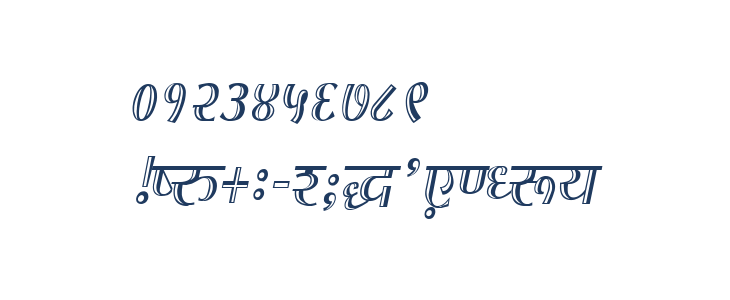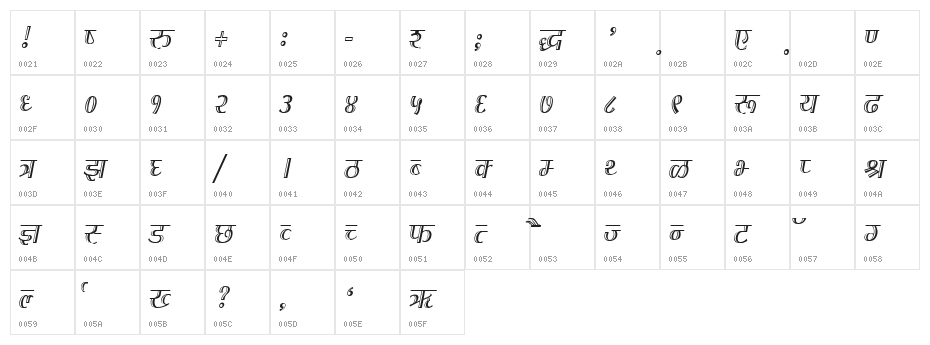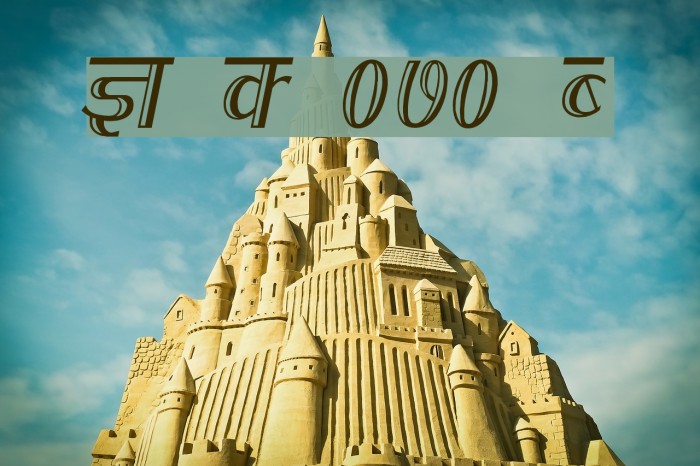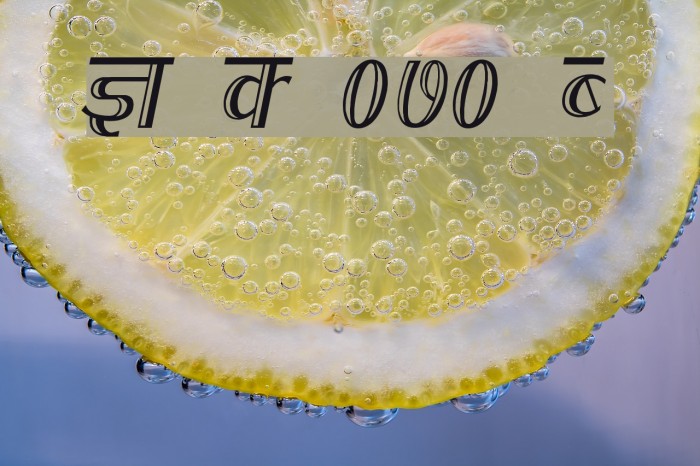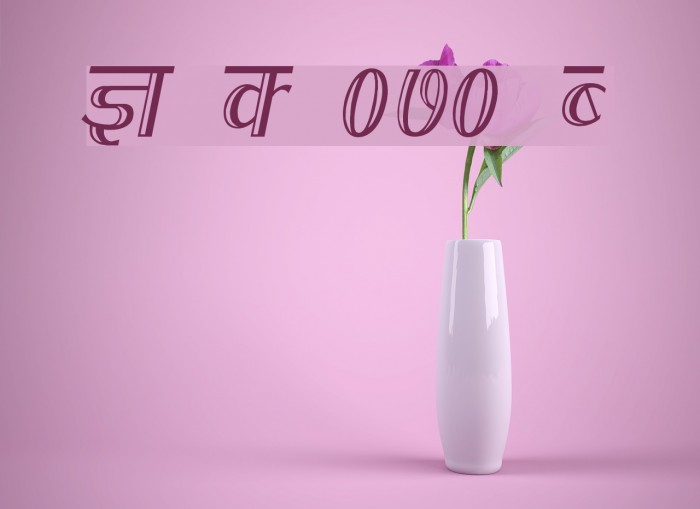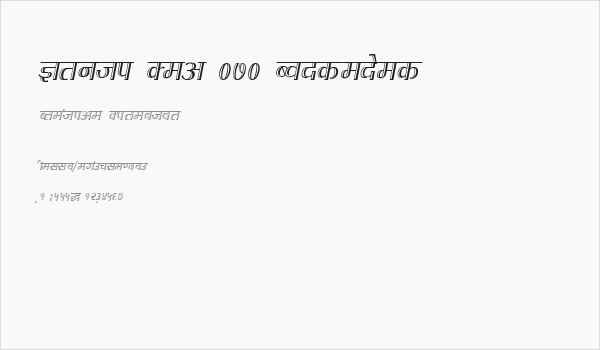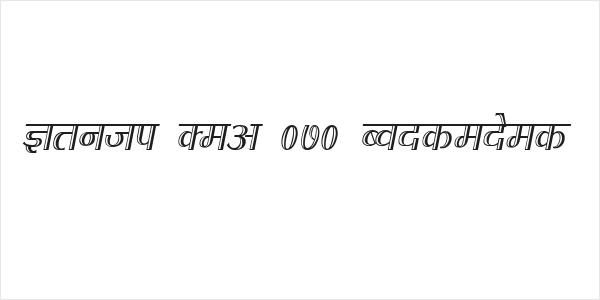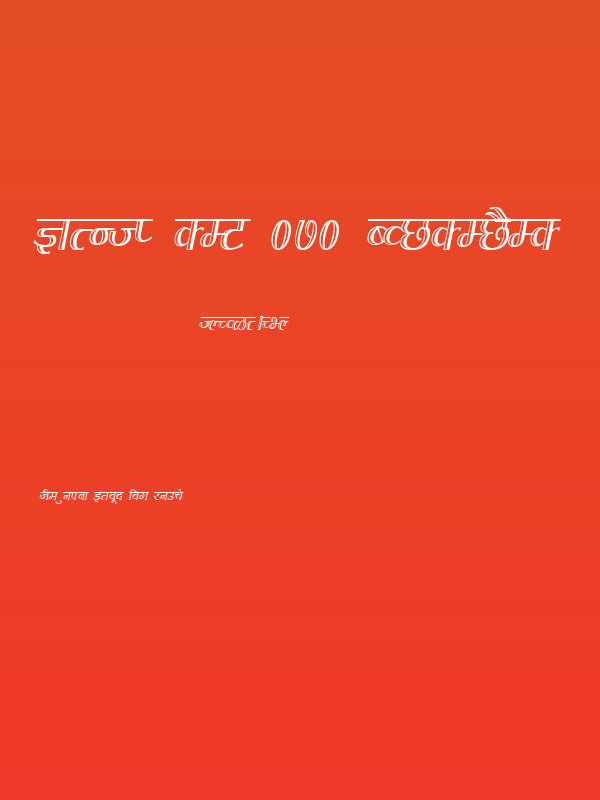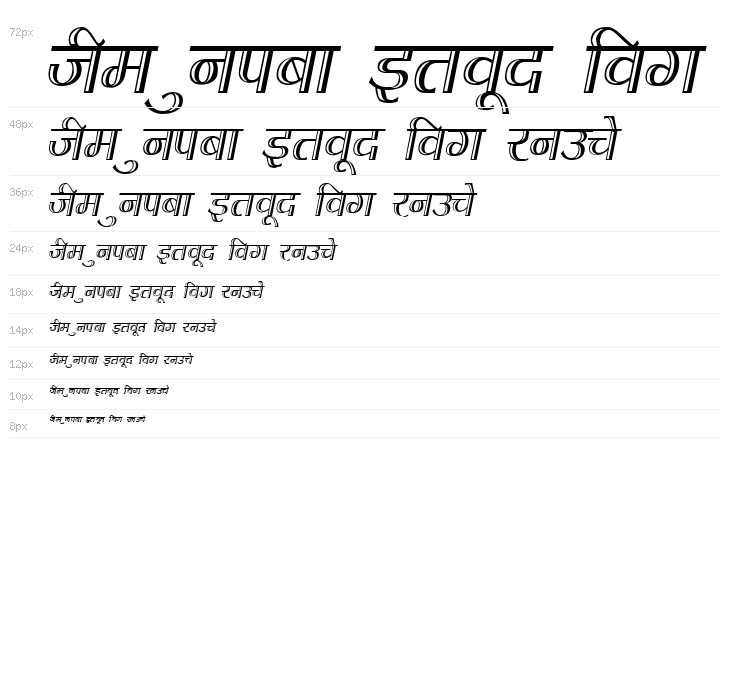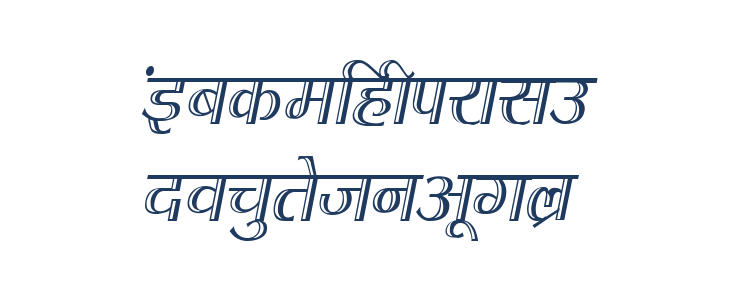
Kruti Dev 070 Condensed Font
Kruti Dev 070 Condensed Description
This font features a distinctive and traditional Devanagari script style, characterized by its condensed and angular letterforms. The strokes are bold and slightly slanted, giving it a dynamic appearance. The characters are tightly spaced, enhancing the condensed feel. The font maintains a consistent stroke width, providing a uniform look across all characters. The overall style is decorative, making it suitable for specific cultural or thematic projects. The font includes a full set of Devanagari characters, numerals, and punctuation marks, ensuring versatility in usage.
Proposed ProjectsIdeal for cultural publications, traditional event invitations, and decorative signage.